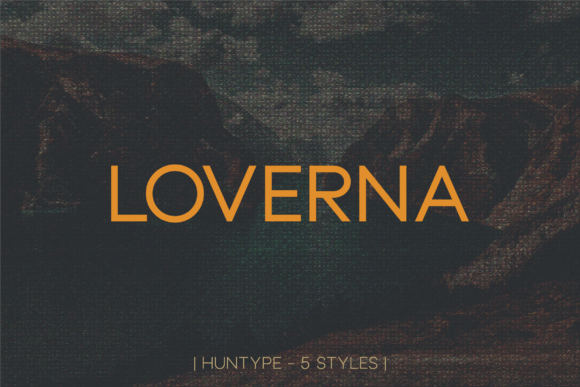
Loverna Font: A Modern and Versatile Typeface for Contemporary Design
In the realm of typography, few fonts have managed to strike a balance between modernity and sophistication as effectively as Loverna. This modern and versatile font family has been making waves in the design community with its unique blend of clean geometric forms and subtle elegance. Loverna’s adaptable style is a testament to its precision-crafted letterforms and contemporary aesthetic, making it an ideal choice for designers seeking a font that can seamlessly transition across various platforms and applications.
The Design Philosophy Behind Loverna
Loverna’s design philosophy revolves around the harmonious fusion of sharp lines and gentle curves. This deliberate combination lends the font its distinctive character, setting it apart from more traditional typefaces. The sharp lines provide a sense of precision and modernity, while the gentle curves introduce a touch of warmth and approachability. The result is a font that feels both cutting-edge and inviting.
The creators of Loverna aimed to craft a font family that not only stands out on its own but also complements a wide range of design contexts. Whether it’s used for headlines, body text, or digital interfaces, Loverna is designed to perform exceptionally well, offering a level of versatility that is hard to find in more specialized fonts.
Key Features of the Loverna Font Family
Loverna’s font family boasts a range of features that contribute to its adaptability and aesthetic appeal. Some of the key characteristics include:
- Clean Geometric Forms: Loverna’s foundation is built on clean, geometric shapes that provide a solid and modern look.
- Subtle Sophistication: The font’s subtle sophistication is evident in its carefully crafted letterforms, which convey a sense of elegance and refinement.
- Precise Letterforms: Each letterform in the Loverna font family is meticulously designed for maximum clarity and impact.
- Contemporary Aesthetic: Loverna’s overall aesthetic is undeniably contemporary, making it perfect for designs that require a modern edge.
The Loverna Font Family: A Collection of Versatile Styles
One of the standout features of the Loverna font family is its range of styles. Rather than being a single, one-dimensional font, Loverna offers a collection of typefaces that cater to different design needs. Each font in the family is designed to stand alone as a impactful and refined typeface, allowing designers to choose the style that best fits their project’s requirements.
From bold and assertive styles perfect for headlines and titles, to more restrained and elegant variations suitable for body text and captions, Loverna’s versatility shines through. This range of styles ensures that designers can maintain consistency across their designs while still having the flexibility to emphasize certain elements.
Applications of Loverna Font
Loverna’s adaptability and aesthetic appeal make it suitable for a wide range of applications. Here are some areas where Loverna truly excels:
- Digital Interfaces: Loverna’s clean lines and modern aesthetic make it an excellent choice for UI/UX design, mobile apps, and websites.
- Print Design: Whether it’s for brochures, posters, or business cards, Loverna’s versatile styles can add a touch of sophistication to any print material.
- Branding and Identity: Loverna’s distinctive character makes it an ideal font for brands looking to establish a modern yet refined identity.
- Advertising: The font’s impact and elegance make it suitable for advertisements that require a strong visual presence.
Why Choose Loverna Font?
With so many fonts available to designers today, what sets Loverna apart? Here are a few reasons why Loverna might be the perfect choice for your next design project:
- Unique Aesthetic: Loverna’s blend of sharp lines and gentle curves offers a unique aesthetic that can help your designs stand out.
- Versatility: The font family’s range of styles ensures that you can find the perfect variation for any design requirement.
- Legibility: Loverna’s precise letterforms and clean design make it highly legible, even at smaller sizes.
- Modern Appeal: If you’re looking for a font with a modern edge, Loverna’s contemporary aesthetic is sure to impress.
Loverna font represents a significant achievement in modern typography, offering a perfect blend of style, versatility, and functionality. Its unique design philosophy, which combines sharp lines with gentle curves, results in a font family that is both sophisticated and approachable. Whether you’re working on a digital project, a print design, or a branding initiative, Loverna provides the tools you need to create visually compelling and effective designs.
As the design landscape continues to evolve, fonts like Loverna will play a crucial role in shaping the visual identities of brands and projects. With its adaptability, aesthetic appeal, and range of styles, Loverna is poised to become a go-to choice for designers seeking a modern and versatile typeface.
Q: What makes Loverna unique?
A: Loverna’s unique blend of sharp lines and gentle curves, along with its precise letterforms and contemporary aesthetic, sets it apart from other fonts.
Q: Can Loverna be used for both digital and print designs?
A: Yes, Loverna’s versatility makes it suitable for a wide range of applications, including digital interfaces, print design, branding, and advertising.